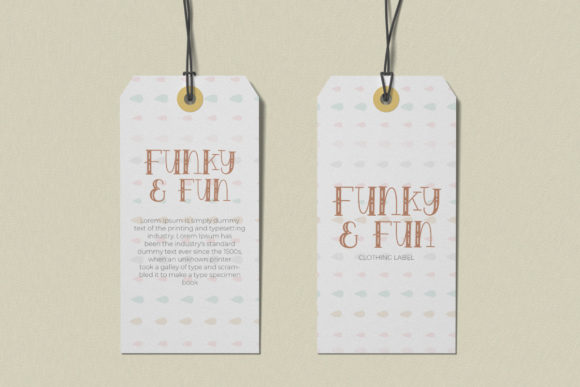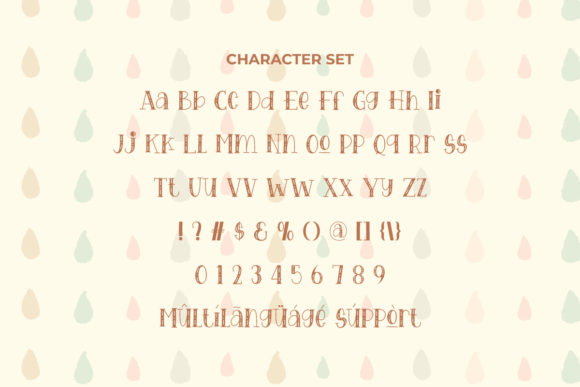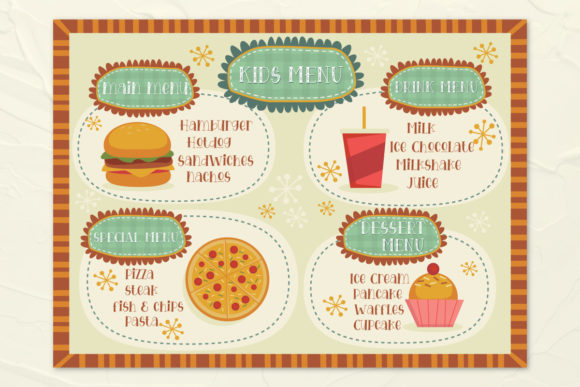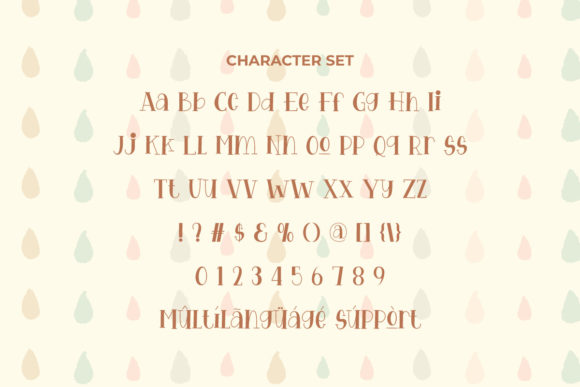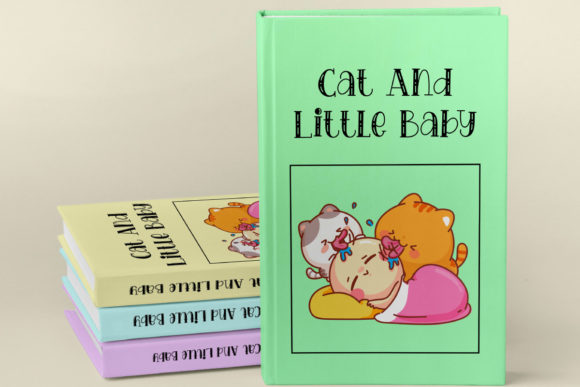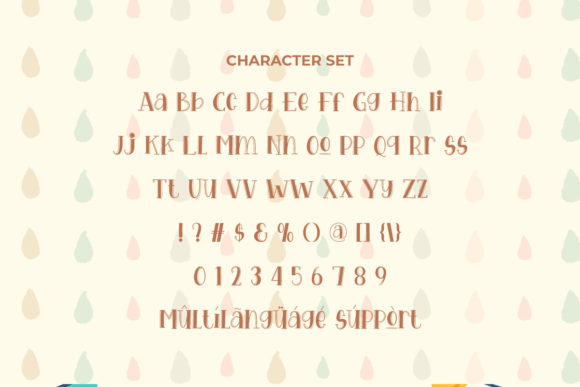
Introducing Happy Rhino: The Playful and Chic Display Font for Creative Projects
Are you tired of using the same old fonts for your creative projects? Do you want to add a touch of playfulness and sophistication to your designs? Look no further than Happy Rhino, a stylish display font that’s perfect for a wide range of applications. In this article, we’ll take a closer look at Happy Rhino and explore its features, uses, and benefits for designers and crafters.
What is Happy Rhino?
Happy Rhino is a modern display font that’s designed to bring a smile to your face. With its bold, yet elegant lines, this font is perfect for making a statement in your designs. Whether you’re working on a card, book title, clothing brand, label, logo design, magazine header, menu flyer, product packaging, or simply want to add a stylish text overlay to a background image, Happy Rhino is the perfect choice.
Key Features of Happy Rhino
So, what makes Happy Rhino so special? Here are some of its key features:
- Playful and Chic: Happy Rhino is a playful and chic font that’s sure to add a touch of personality to your designs.
- Display Font: This font is specifically designed for display purposes, making it perfect for headlines, titles, and other prominent text elements.
- Versatile: Happy Rhino can be used for a wide range of applications, from cards and book titles to clothing brands and product packaging.
- Elegant Lines: The font features bold, yet elegant lines that are sure to make your designs stand out.
Uses for Happy Rhino
So, what can you use Happy Rhino for? The possibilities are endless! Here are some ideas to get you started:
- Cards: Add a personal touch to your greeting cards, invitations, and postcards with Happy Rhino.
- Book Titles: Make your book titles stand out with this stylish font.
- Clothing Brands: Use Happy Rhino to create eye-catching logos and labels for your clothing brand.
- Labels: Add a touch of personality to your product labels with this playful font.
- Logo Design: Create a memorable logo for your business or brand with Happy Rhino.
- Magazine Headers: Use this font to create attention-grabbing headers for your magazine or newsletter.
- Menu Flyers: Make your menu flyers stand out with Happy Rhino.
- Product Packaging: Add a touch of elegance to your product packaging with this stylish font.
- Text Overlays: Use Happy Rhino to create stylish text overlays for your background images.
So, why should designers and crafters choose Happy Rhino? Here are some benefits:
- Easy to Read: Despite its playful nature, Happy Rhino is easy to read, making it perfect for body text and headlines.
- Customizable: This font is highly customizable, allowing you to adjust the size, color, and style to suit your design needs.
- Unique: Happy Rhino is a unique font that’s sure to make your designs stand out from the crowd.